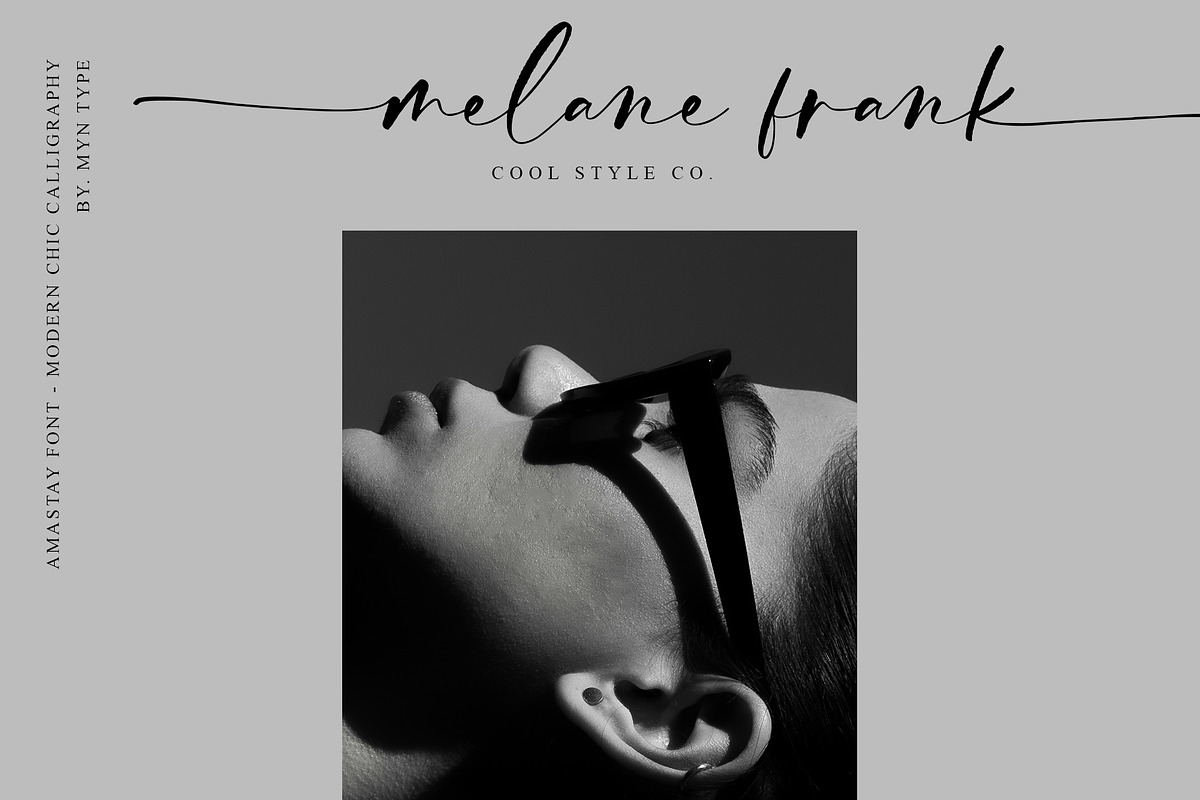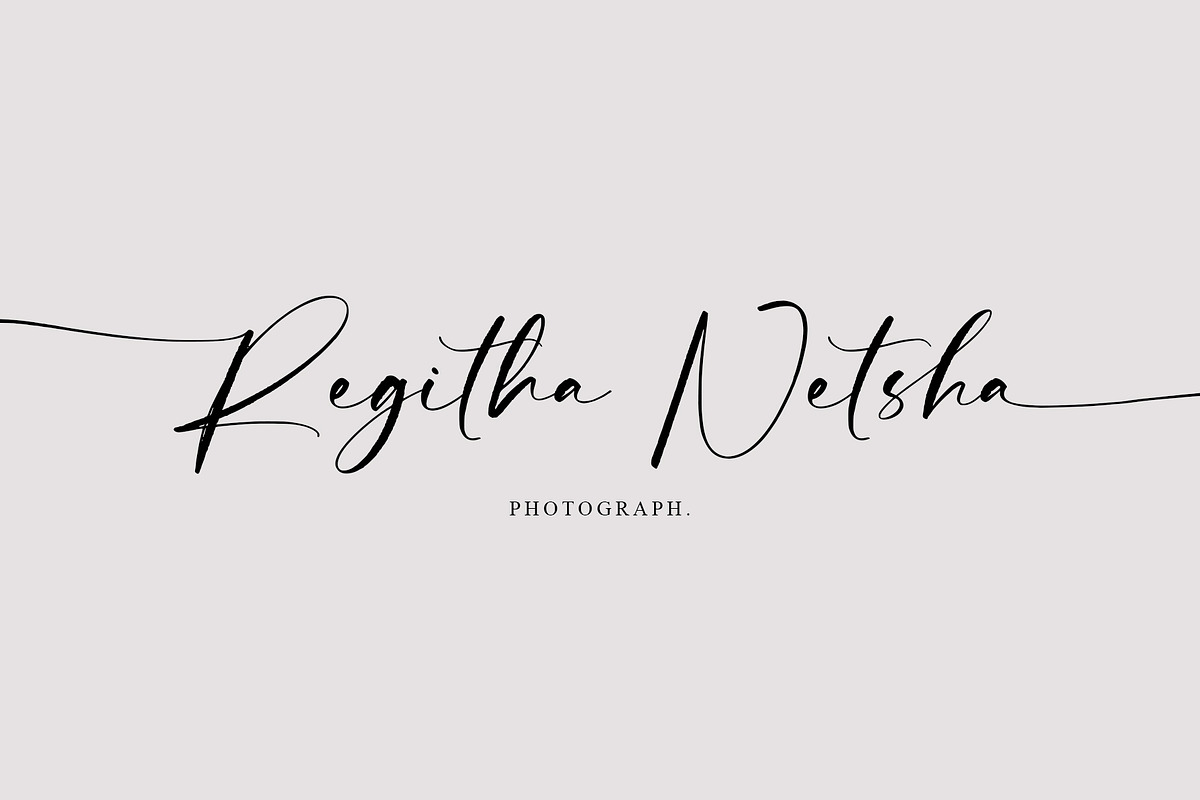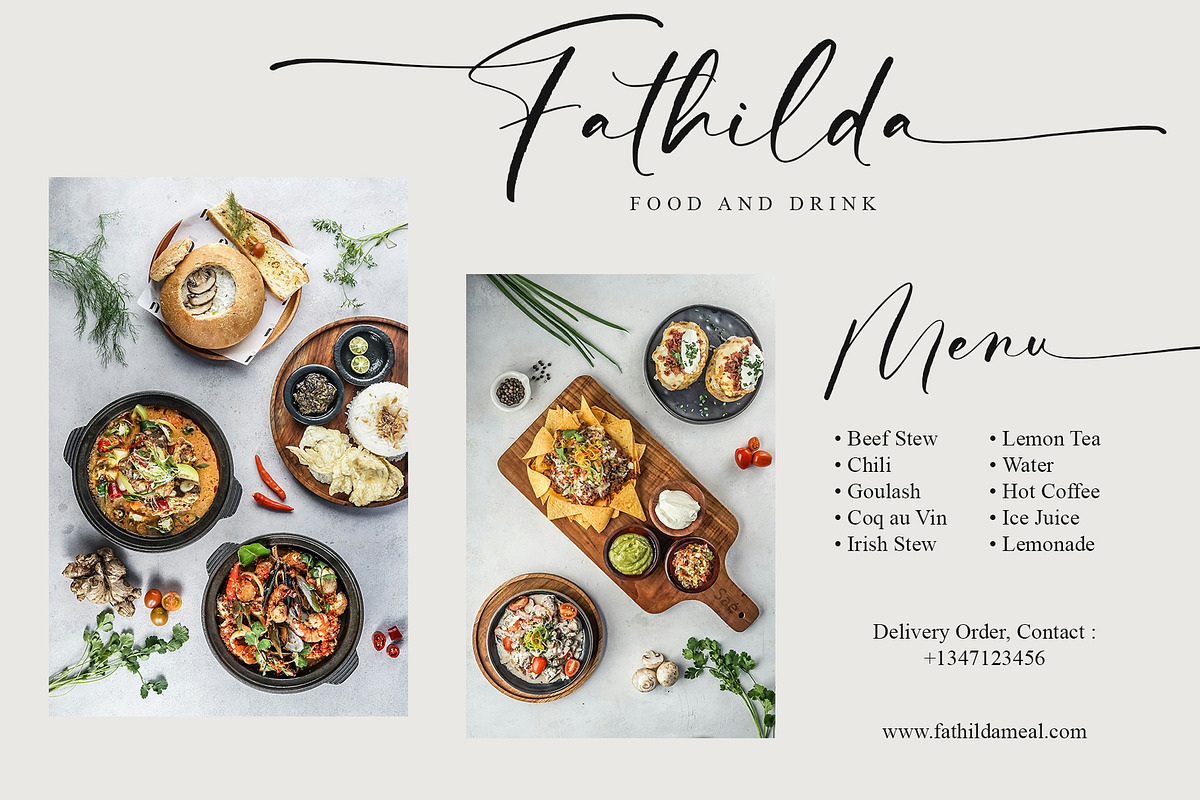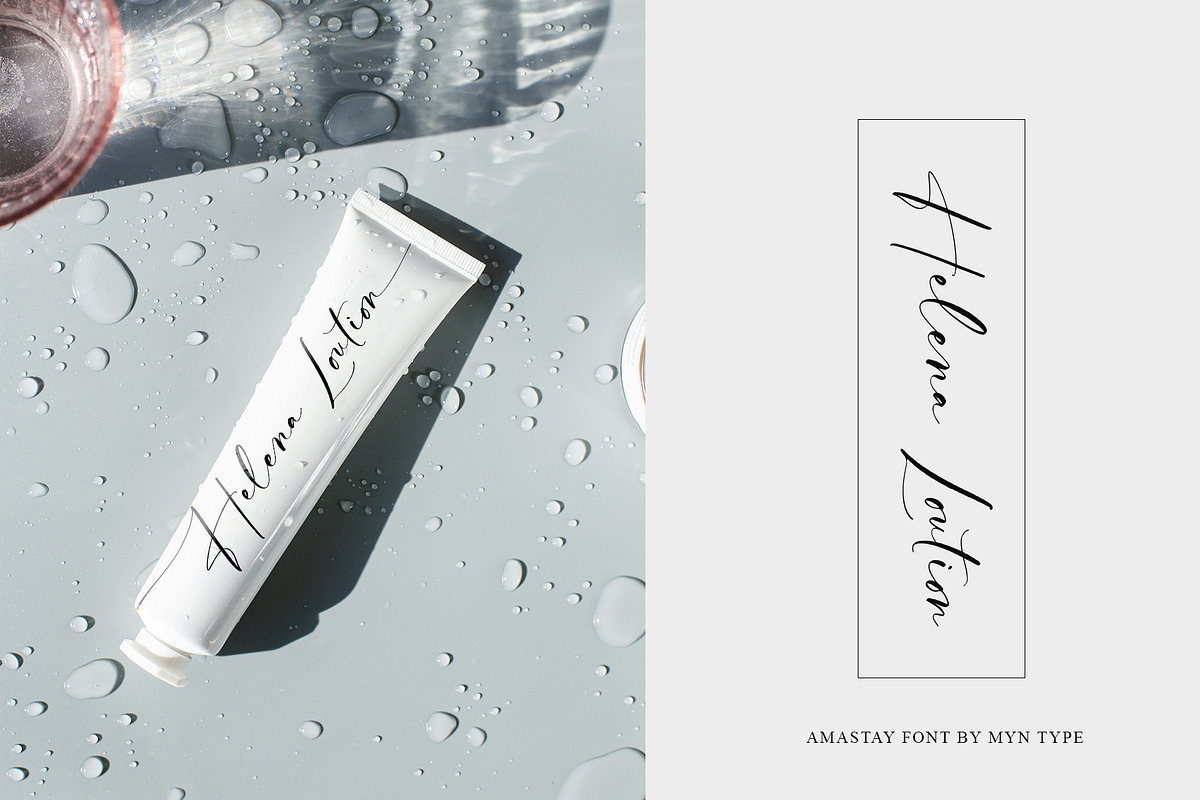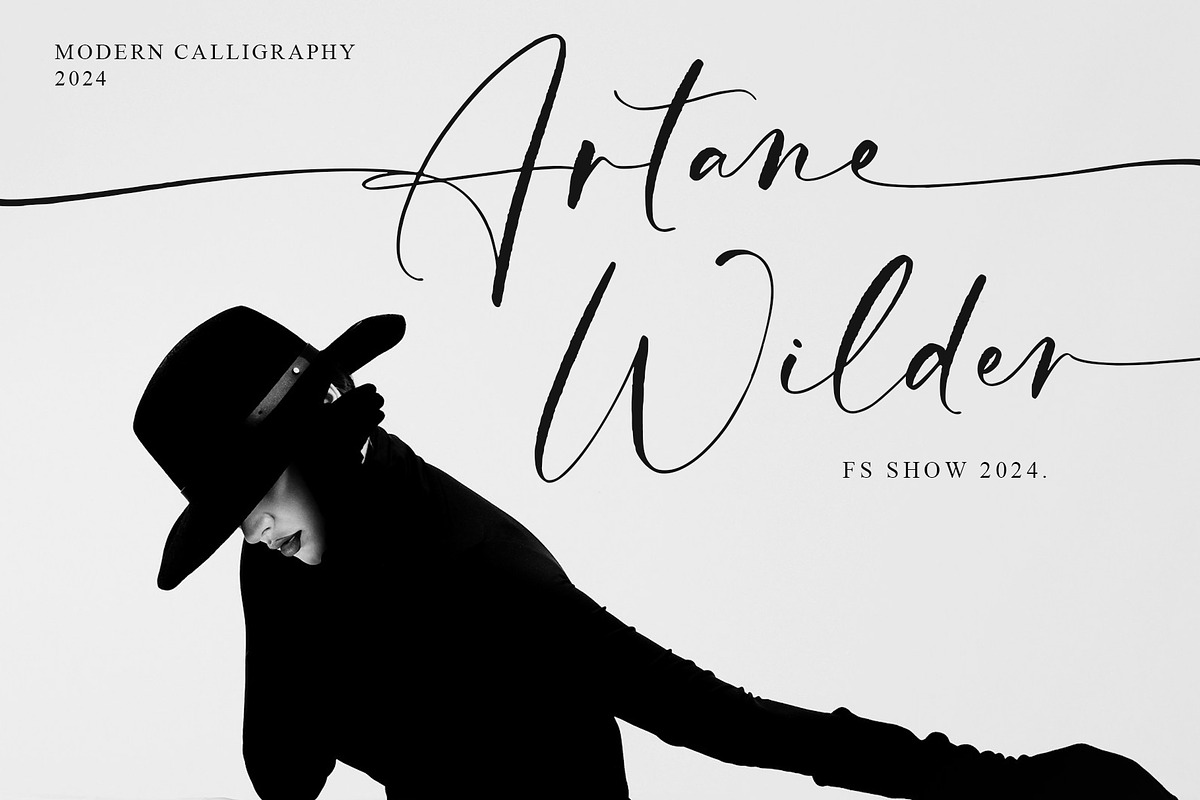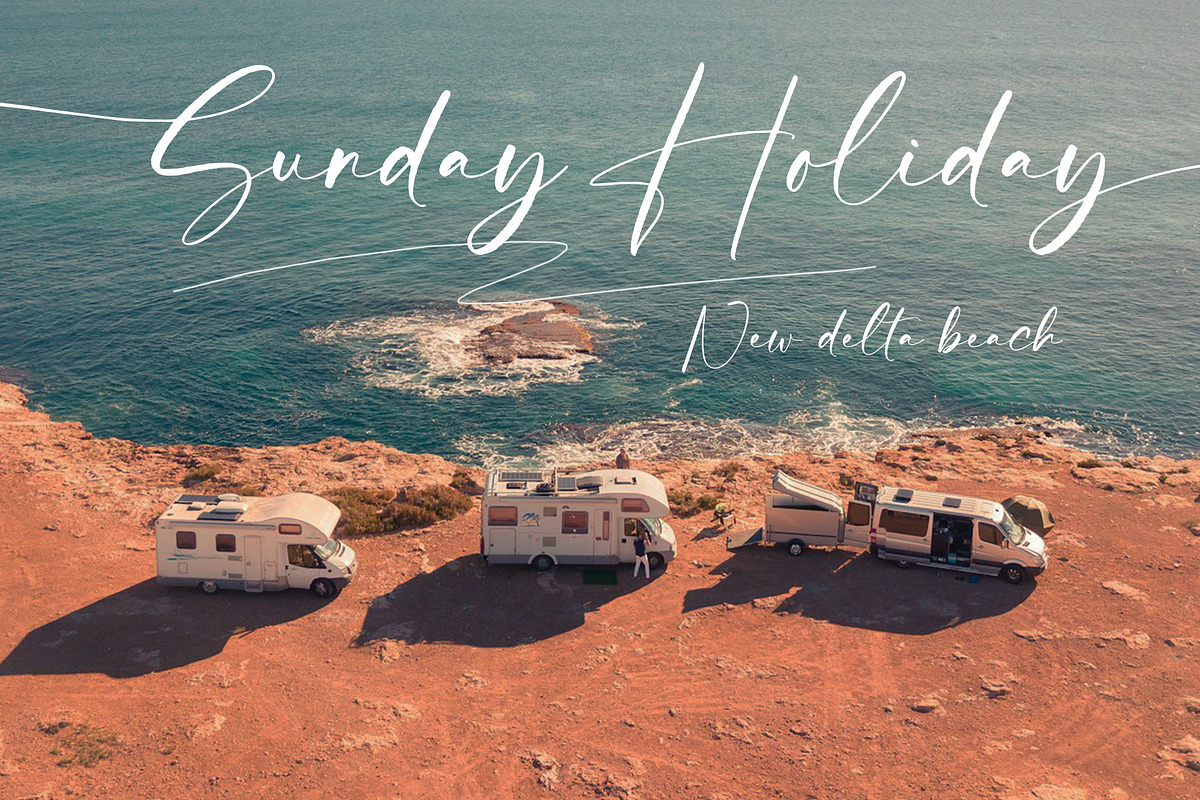
Amastay - Modern Ink Calligraphy
Amastay is a natural ink handwriting calligraphy script font with a swash tail combines the organic and textured feel of ink with a natural rhythm that resembles elegant handwriting script.
This font is a beautiful fusion of organic ink texture and flowing calligraphy. The swash tails add an extra layer of elegance, making the font both distinctive and versatile, perfect for wedding desing, branding, calligraphy logos, display product, invitation design, and adding a luxurious, handcrafted touch to any design.
HOW TO USE THE SWASH : its very simple just add “-”(hypen symbol) on the letter that you want give a swash.
For example : -Amastay- (for more detail, you can see on preview image in page 13).